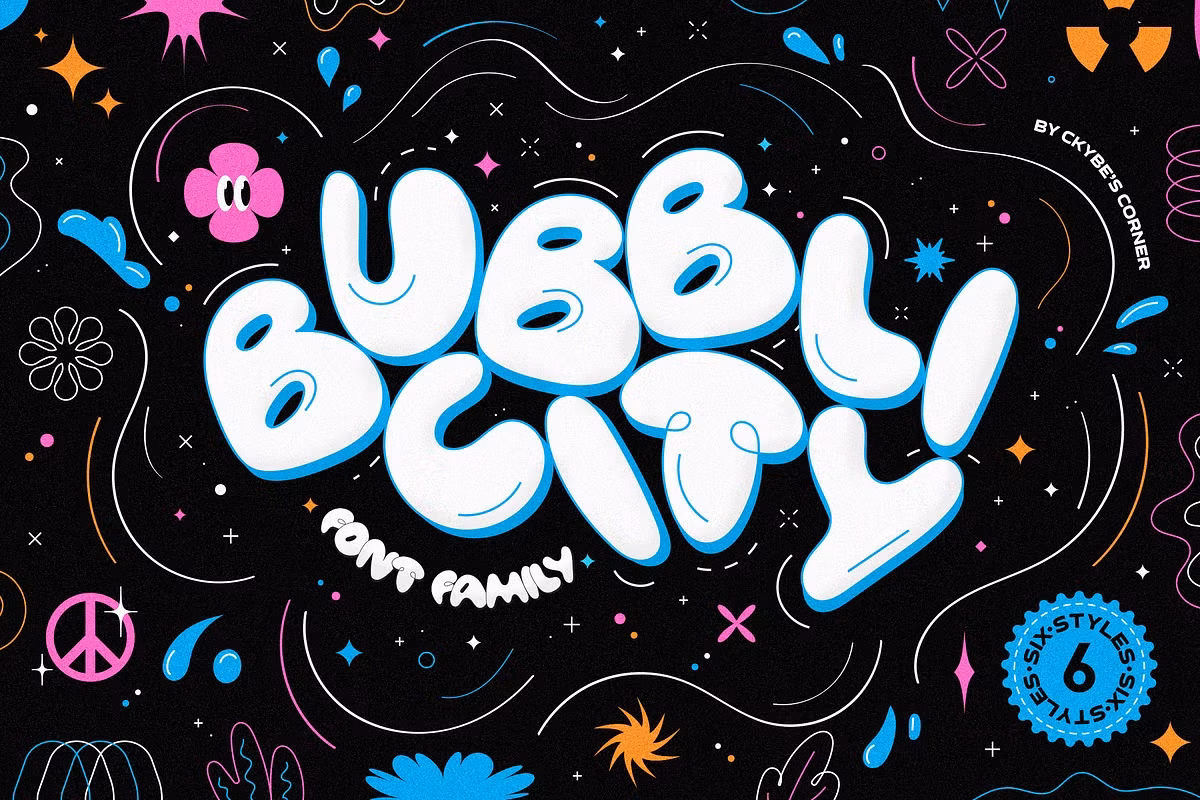
You must purchase this font for commercial use. However, you can download Bubblicity | Bubble Font Family Free Download for testing purposes. Bubblicity is a playful, fun, and bold bubble font family designed to bring a cheerful and lighthearted vibe to any design project. Perfect for logos, social media posts, posters, children’s designs, and casual branding, this font family captures the joy of bubble letters with its round, soft shapes.
The font family includes a variety of weights and styles, offering flexibility for both display use and more subtle applications. Whether you're creating a vibrant poster, a quirky logo, or a fun product packaging design, Bubblicity | Bubble Font Family Free Download is a great choice for projects that require a fun and engaging font style.